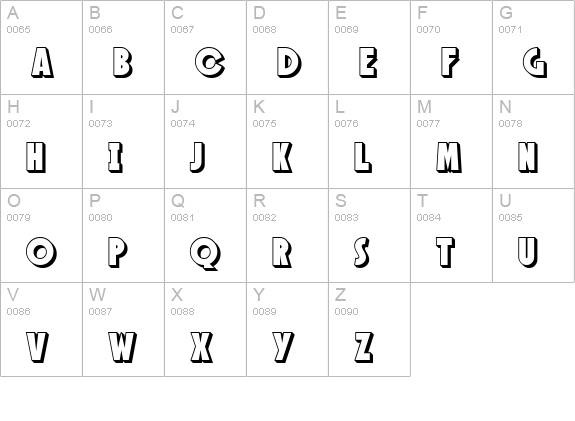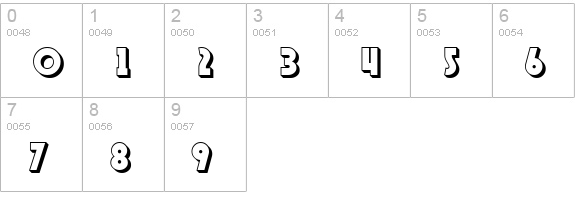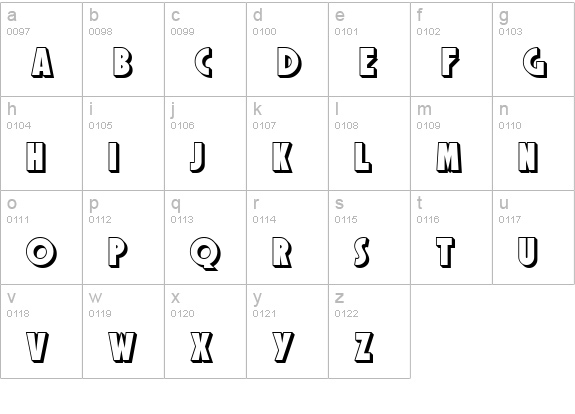
SF Speakeasy Shaded Font Details
Introducing SF Speakeasy Shaded font, a mesmerizing typeface that effortlessly combines vintage charm with a contemporary twist. This font is the epitome of elegance, taking inspiration from the clandestine speakeasies of the 1920s. With its intricate details and subtle shading, SF Speakeasy Shaded font captures the essence of a bygone era, inviting you to step into a world of mystery and sophistication. Every curve and line of SF Speakeasy Shaded font tells a story, evoking images of elegant soirées, secret rendezvous, and whispered conversations. Its timeless appeal makes it perfect for a wide range of design projects, from invitations and posters to branding and packaging. Whether you're creating a vintage-inspired wedding invitation or a jazz-themed poster, this font will add a touch of authenticity and allure. What sets SF Speakeasy Shaded font apart is not only its stunning design but also the fact that it is freely available to download at FontsMarket.com. This means that you can bring the charm of the Roaring Twenties to your designs without breaking the bank. Whether you're a professional designer or a passionate hobbyist, SF Speakeasy Shaded font offers you the opportunity to create stunning visuals without any cost constraints. So, why wait? Embrace the allure of the past and infuse your designs with an air of sophistication. Download SF Speakeasy Shaded font from FontsMarket.com today and unlock a world of creative possibilities. Let this font transport you to an era of hidden speakeasies, velvet curtains, and whispered secrets. With SF Speakeasy Shaded font, the elegance of the 1920s is at your fingertips, ready to elevate your designs to new heights.